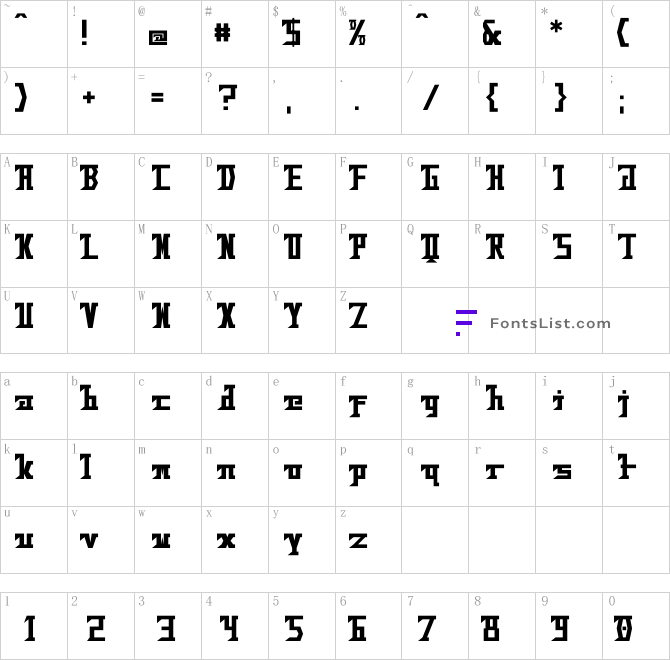
- Font Name:Bad Future
Bad-Future-copy-1-.ttf is a very beautiful artistic font, Bad-Future-copy-1-.ttf is widely used in the design and printing of various books and pictures,Bad-Future-copy-1-.ttf has a strong visual impact,Bad-Future-copy-1-.ttf is a commonly used font in newspapers, magazines and books, and is used in posters, e-commerce Poster design, store design, logo design, font design and other fields.Bad-Future-copy-1-.